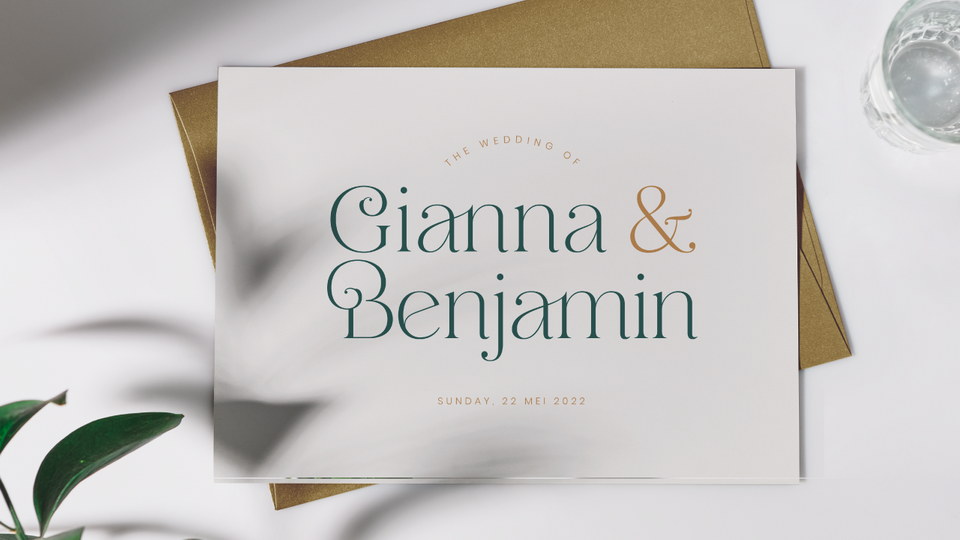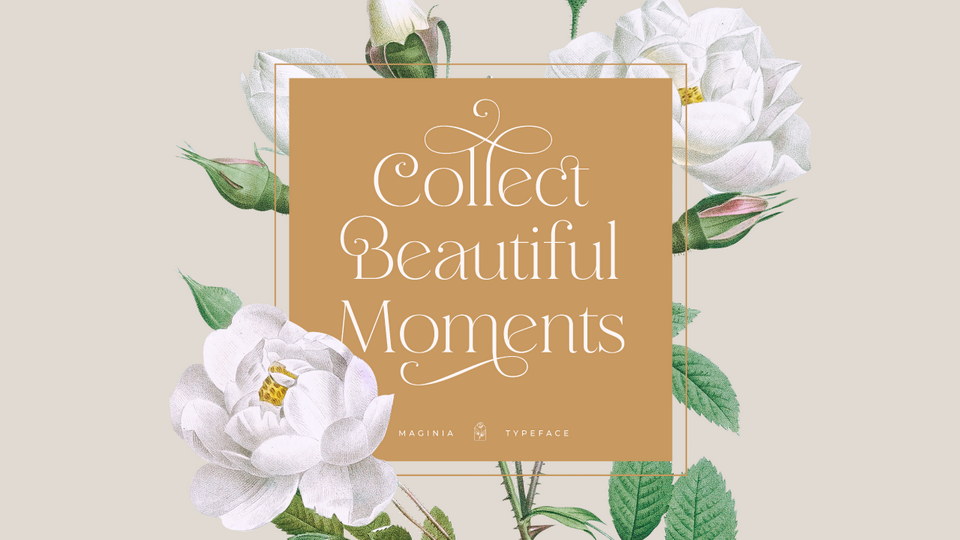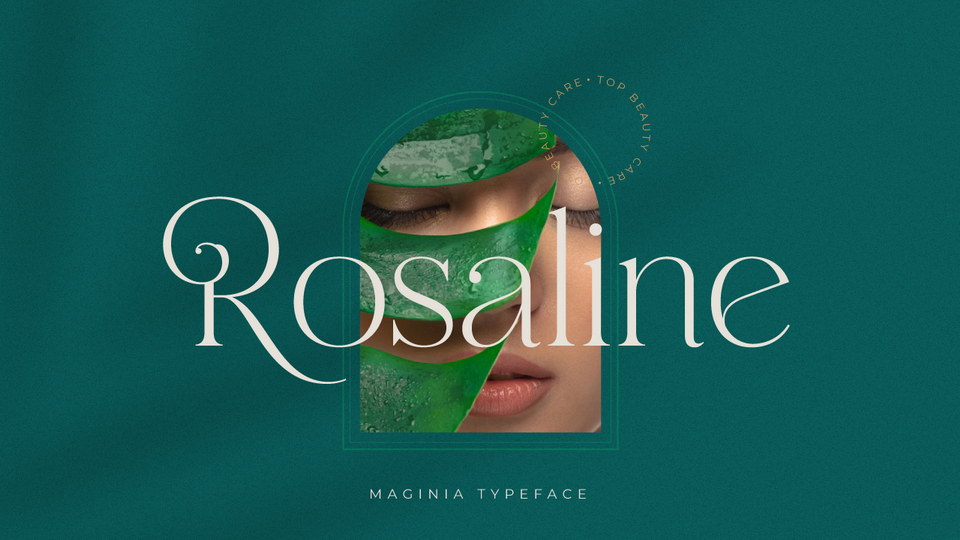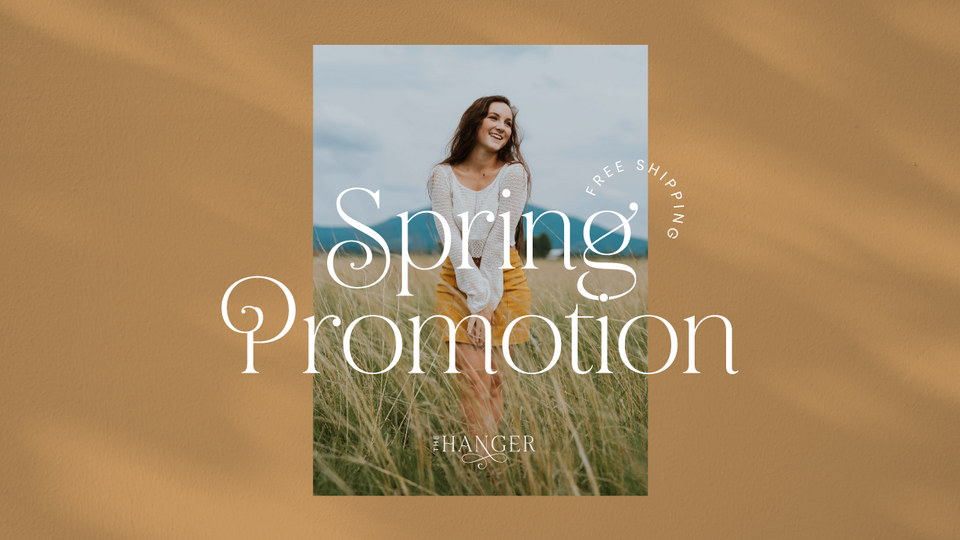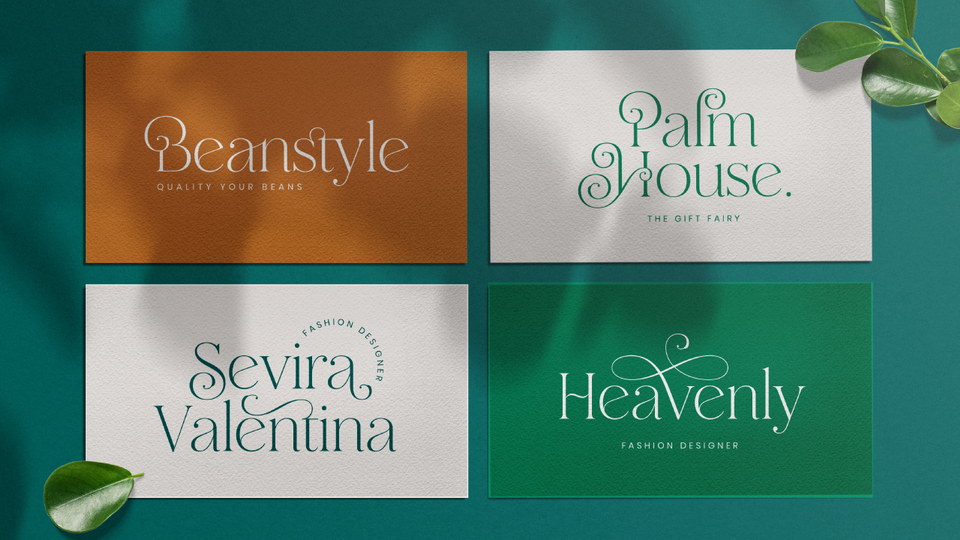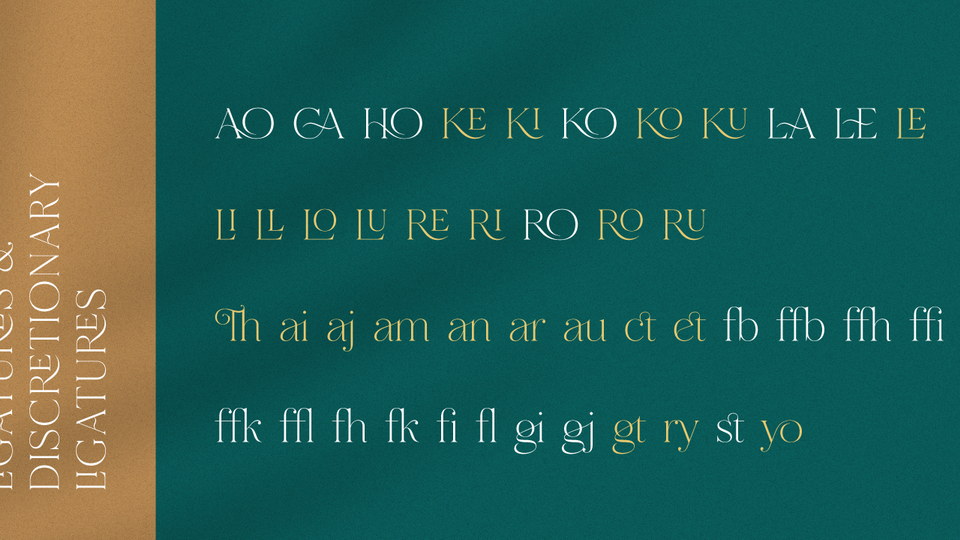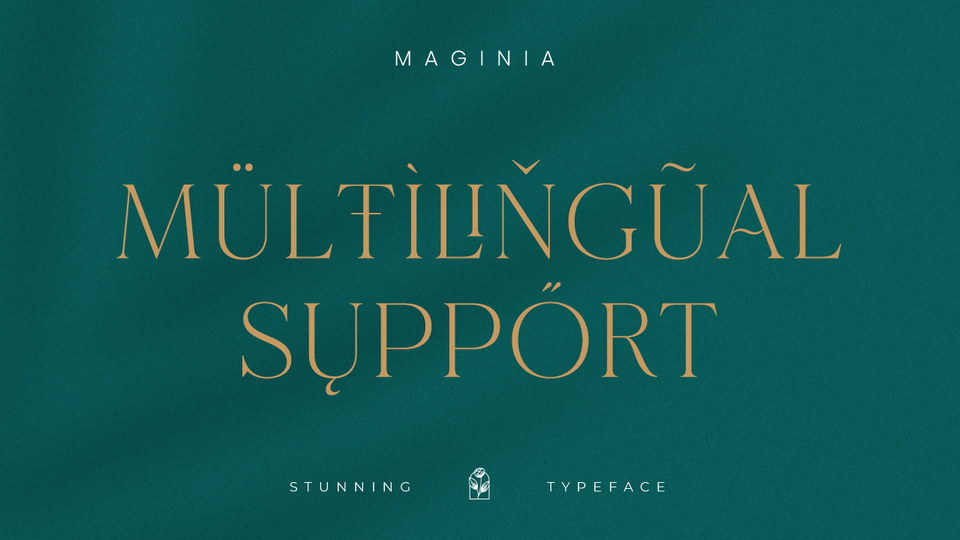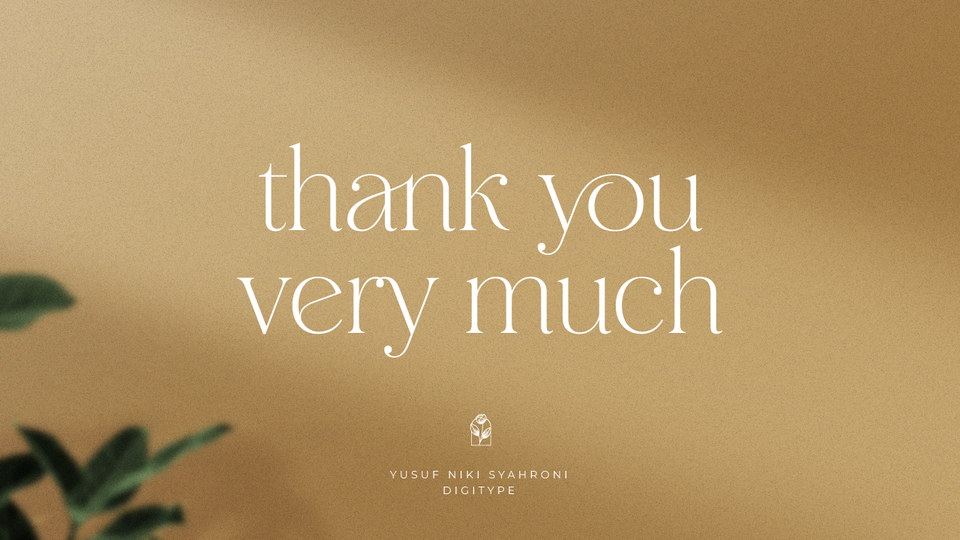
Maginia is a delicate and stylish serif font to make your project look more unique, beautiful and awesome like magic.
Maginia font is very suitable to be applied to various formal forms such as invitations, labels, logos, magazines, books, greeting/wedding cards, packaging, fashion, make-up, stationery, novels, labels, or any kind of purpose.